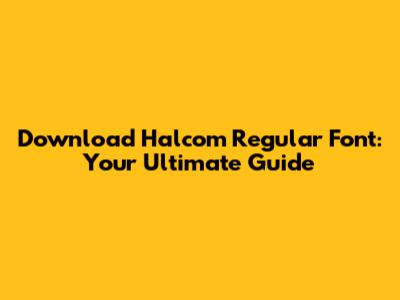
Download Halcom Regular Font: Your Ultimate Guide
What is Halcom Regular Font?
So, what's the deal with Halcom Regular Font? Simply put, it's a versatile sans-serif font that's super clean and easy on the eyes. It's the kind of font that's perfect for a wide range of uses, from body text in your documents to eye-catching headings on your website. Halcom Regular strikes a great balance between being readable and stylish, making it a solid choice for any project. This font is known for its clarity and legibility, making it an excellent option for both print and digital media. Its neutral design allows it to blend seamlessly into various design aesthetics. Think of it as the dependable friend of the font world – always there when you need it, and never letting you down. The font’s simple, uncluttered design allows for easy readability, even at smaller sizes, making it ideal for everything from lengthy articles to short, snappy headlines. It's a workhorse font, plain and simple, and its versatility makes it a valuable asset for any designer or anyone looking to enhance their written content. This font is a favorite for those who value both form and function in their typography choices. Whether you're crafting a business report, designing a website, or creating a poster, Halcom Regular can help you create content that looks professional and feels engaging.
Halcom Regular is designed with a modern aesthetic, featuring clean lines and well-defined letterforms. This contributes to its overall readability, ensuring that your message is conveyed clearly and efficiently. Moreover, the font is available in various weights and styles, giving you the flexibility to choose the best option for your specific project. This adaptability allows Halcom Regular to be used effectively in a variety of applications, from creating a professional-looking resume to designing an attractive social media graphic. The font's design focuses on simplicity, readability, and a touch of elegance. This makes it a great choice for both large-scale projects and smaller personal endeavors. The creators of Halcom Regular paid close attention to detail, ensuring that each character is designed to enhance visual communication. This font is perfect for any project where readability and clarity are essential, making your text stand out without overwhelming the reader. So, if you're aiming for a classic yet contemporary look, Halcom Regular is your perfect match. With its simple design and clean lines, it elevates any written project, giving it a polished and refined appearance. In essence, Halcom Regular Font is more than just letters on a page; it's a tool that can transform how you communicate visually. Its versatility and elegance make it a font that deserves a spot in your collection.